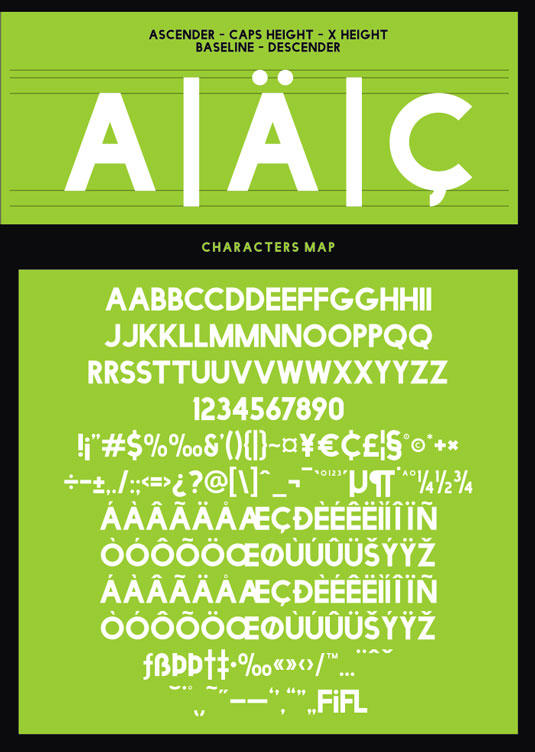
Font of the day: Facile Sans
Facile Sans by Fahrizal Tawakkal
Today's font of choice, Facile Sans, is the work of designer Fazrihal Tawakkal aka Twicolabs. An all caps, sans serif typeface with a bold, geometric shape, Facile Sans is great for headlines, logos and much more.